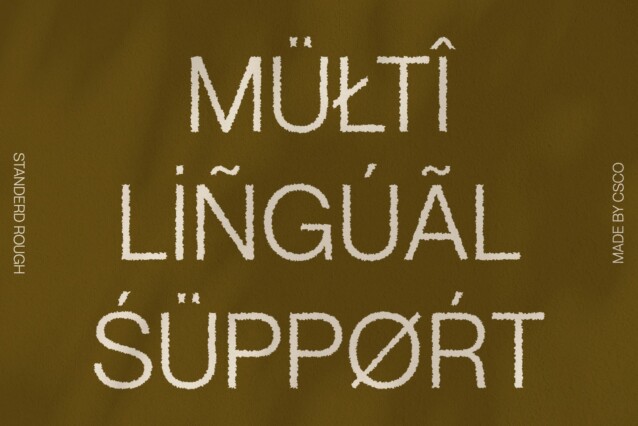
Standerd Rough Font
Standerd Rough Font is a modern sans-serif font with a grotesque form that combines bold, clean lines with an industrial, utilitarian feel. The font’s simple, minimal ornamentation delivers a powerful and contemporary look, making it a striking choice for modern designs.